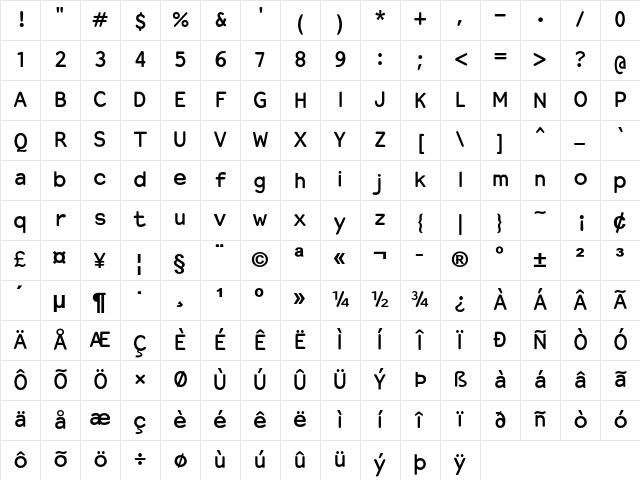
Abolon Regular
Design Context for Abolon
Abolon is a composed and adaptable typeface that performs quietly and consistently across a wide range of design contexts.